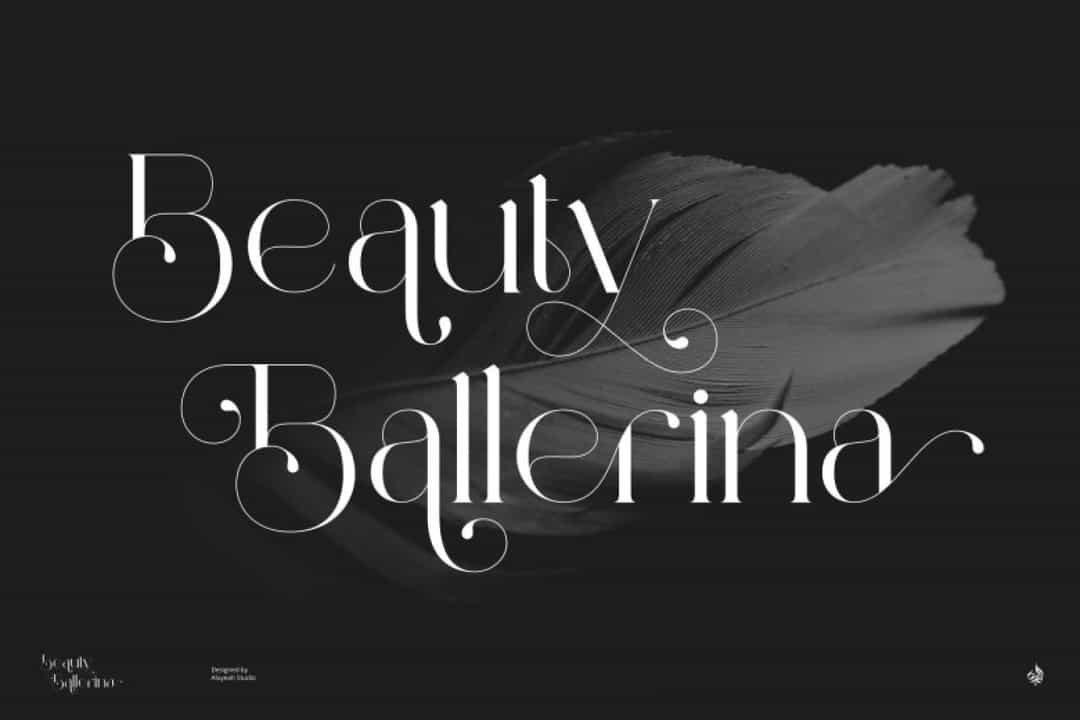
Beauty Ballerina Font
Beauty Ballerina, an elegant font that represents grace and beauty, is now available as the go-to solution for those seeking fonts that radiate grace and beauty. Each exquisite element embodies the power, passion and grace exhibited by a ballerina dancer; making Beauty Ballerina an emblematic representation of ballet dancers’ grace and beauty.